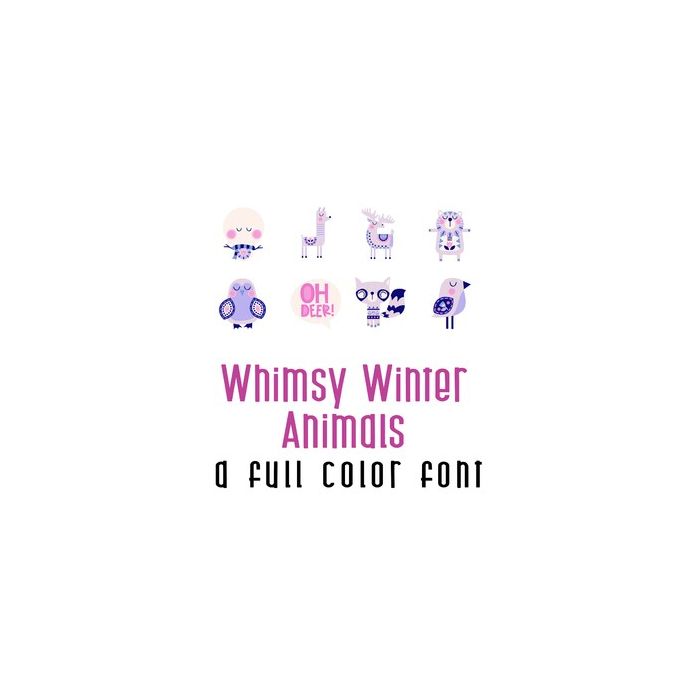
This adorable full-color doodlebat font features 26 whimsical forest animals and puns. Perfect for cards, crafts, gifts, decor, scrapbook pages, planner stickers, and more!